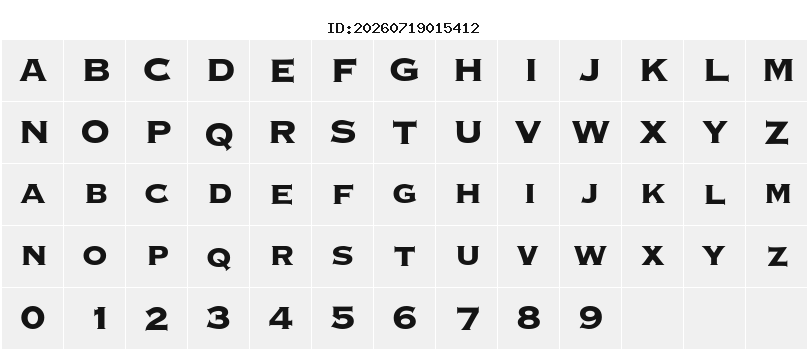
CoolblueFirstLarge Preview
• Font Name: CoolblueFirstLarge
• Font ID: Altsys Fontographer 4.0 CoolblueFirstLarge Normal
• Full Font Name: CoolblueFirstLarge Normal
• Version: Altsys Fontographer 4.0 26.8.1993
• PostScript Name: CoolblueFirstLargeNormal
• Character Count: 244
About CoolblueFirstLarge.ttf
CoolblueFirstLarge.ttf is a modern, elegant sans-serif font designed for ultimate readability and visual harmony. Perfect for branding, headlines, web design, and print materials.